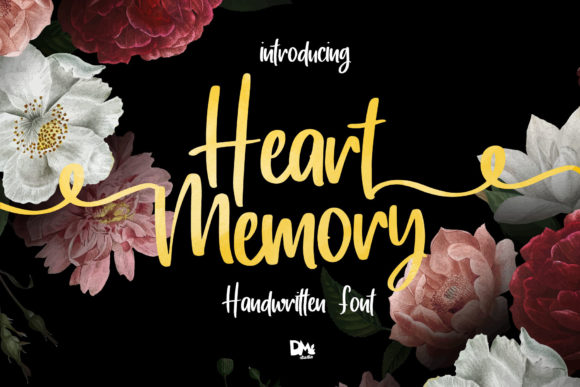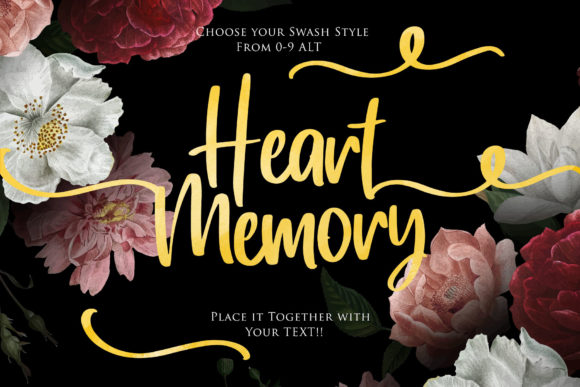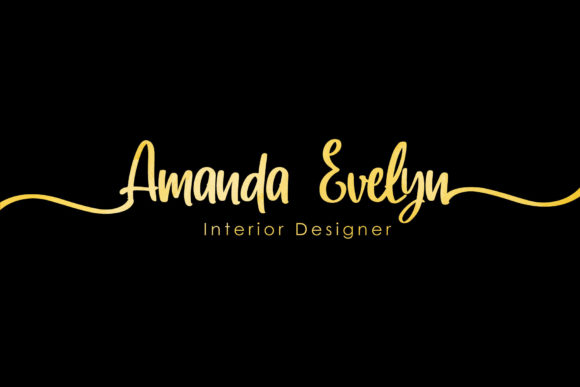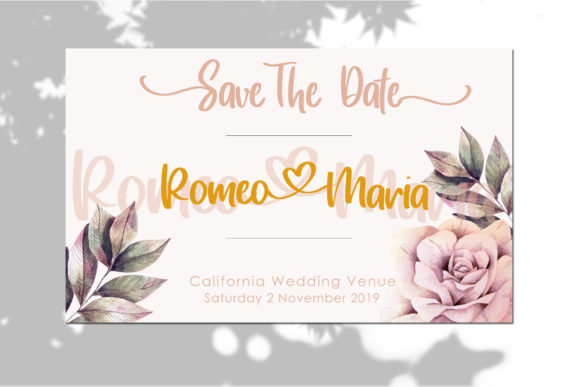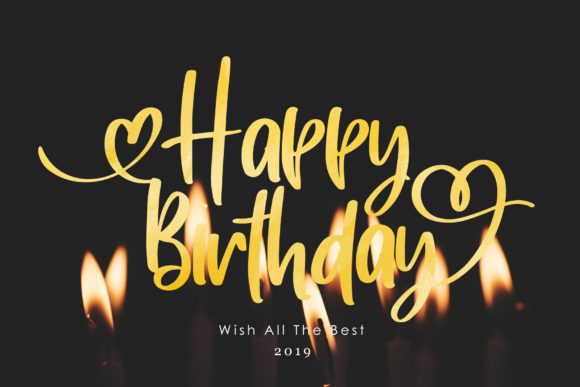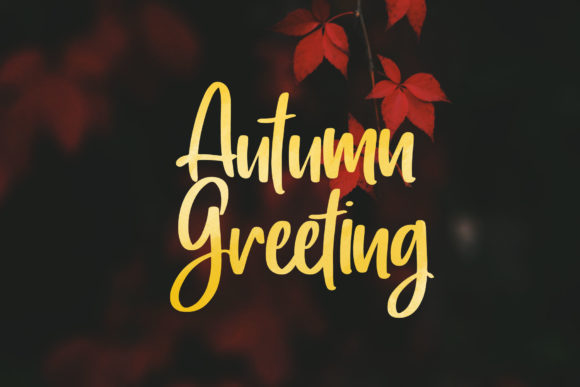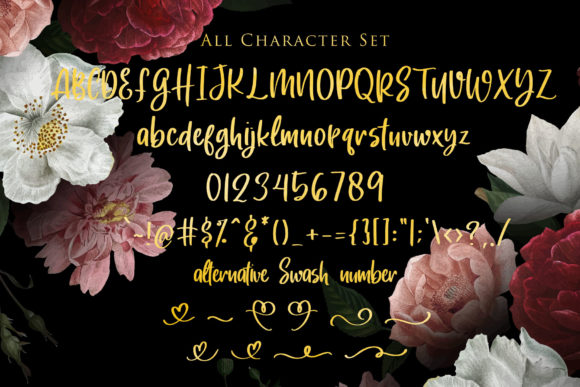
HomeScript FontsHeart Memory Font Script Fonts Heart Memory Font FacebookXPinterestWhatsApp Heart Memory Font Poster 2 Heart Memory Font Poster 3 Heart Memory Font Poster 4 Heart Memory Font Poster 5 Heart Memory Font Poster 6 Heart Memory Font Poster 7 About Heart Memory Font Heart Memory is an original script font that features a striking design. Get inspired by its timeless look! DOWNLOAD NOW People also explored Karnika Font Passionate Font Summer Rainbow Font Drop Dead Gorgeous Cutenique Font Cheesecake Font Giftmas Font Vinta Kicker Font Heritage Font 333 0 TagsHeart Memory Font Previous articleRiverstar Signature FontNext articleBeach Girl Font LEAVE A REPLY Cancel reply Comment: Please enter your comment! Name:* Please enter your name here Email:* You have entered an incorrect email address! Please enter your email address here Website: Save my name, email, and website in this browser for the next time I comment. Personal Use Free Engine Personal Use Free Read more about this font Elliane Personal Use Free Read more about this font Bettari Personal Use Free Read more about this font Hair Thinned Personal Use Free Read more about this font BLOG Best Fonts for YouTube Videos: Make Your Thumbnails Stand Out Best Fonts for YouTube Videos: Make Your Thumbnails Stand Out Choosing the right font can make a massive difference in how your YouTube videos perform.... Best Fonts for T-Shirt Design – Top 2025 Picks Top 10 Handwritten Fonts That Elevate Your Designs Top 7 Google Fonts Alternatives for Faster and Privacy-Friendly Web Design (2025)